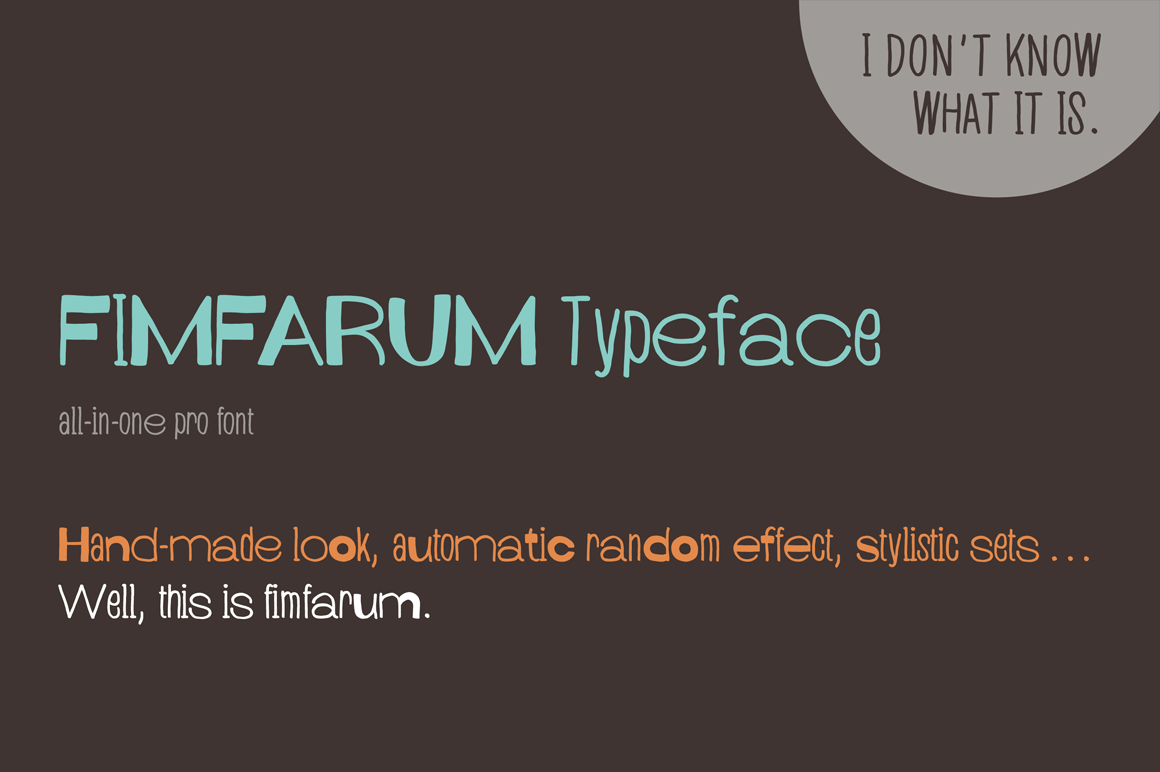
Fimfarum Pro Font
Fimfarum is a word that the Czech actor and writer Jan Werich created for one of his magical fairy tales for children and adults.
Fimfarum is also the name of this playful typeface equipped with various styles simulating the randomness of handwriting.
You can select and combine different styles using this all-in-one pro font in an OpenType-savvy application. Fimfarum Pro also offers an automatic random effect. The OpenType contextual alternates feature can randomly mix narrow, wide and bold characters. You can specify how through various stylistic sets.
With this versatile tool your designing possibilities are immense.
Well, this is Fimfarum.